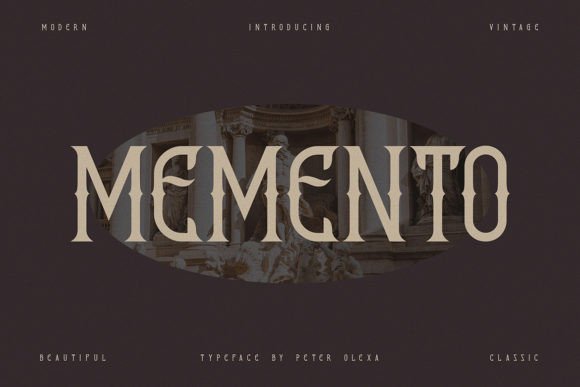
Journey through time with Memento Font, a serif treasure that embodies elegance and retro charm. Its classic lines and bold presence bring a timeless touch to your creative projects. Dive into the world of Memento and let its vintage flair captivate your audience.
With Memento, your headlines will command attention, your logos will exude sophistication, and your designs will radiate a sense of nostalgia. Its versatility extends to�らゆる�らゆるevery corner of your creative endeavors, making it the perfect choice for branding, packaging, posters, and more.
Whether you're a seasoned designer or just starting out, Memento is the perfect font to add a touch of class and distinction to your work. Its user-friendly nature makes it easy to incorporate into any project, allowing you to create stunning visuals effortlessly.
Don't settle for ordinary fonts that blend into the background. Embrace Memento and unleash your creativity. Its rich, distinctive style will make your designs stand out from the crowd, leaving a lasting impression on your audience.